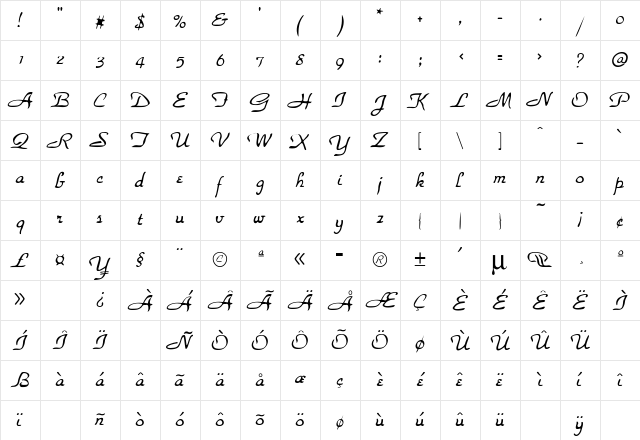
Parker Regular
Design Context for Parker
Parker is a composed and adaptable typeface that performs quietly and consistently across a wide range of design contexts.